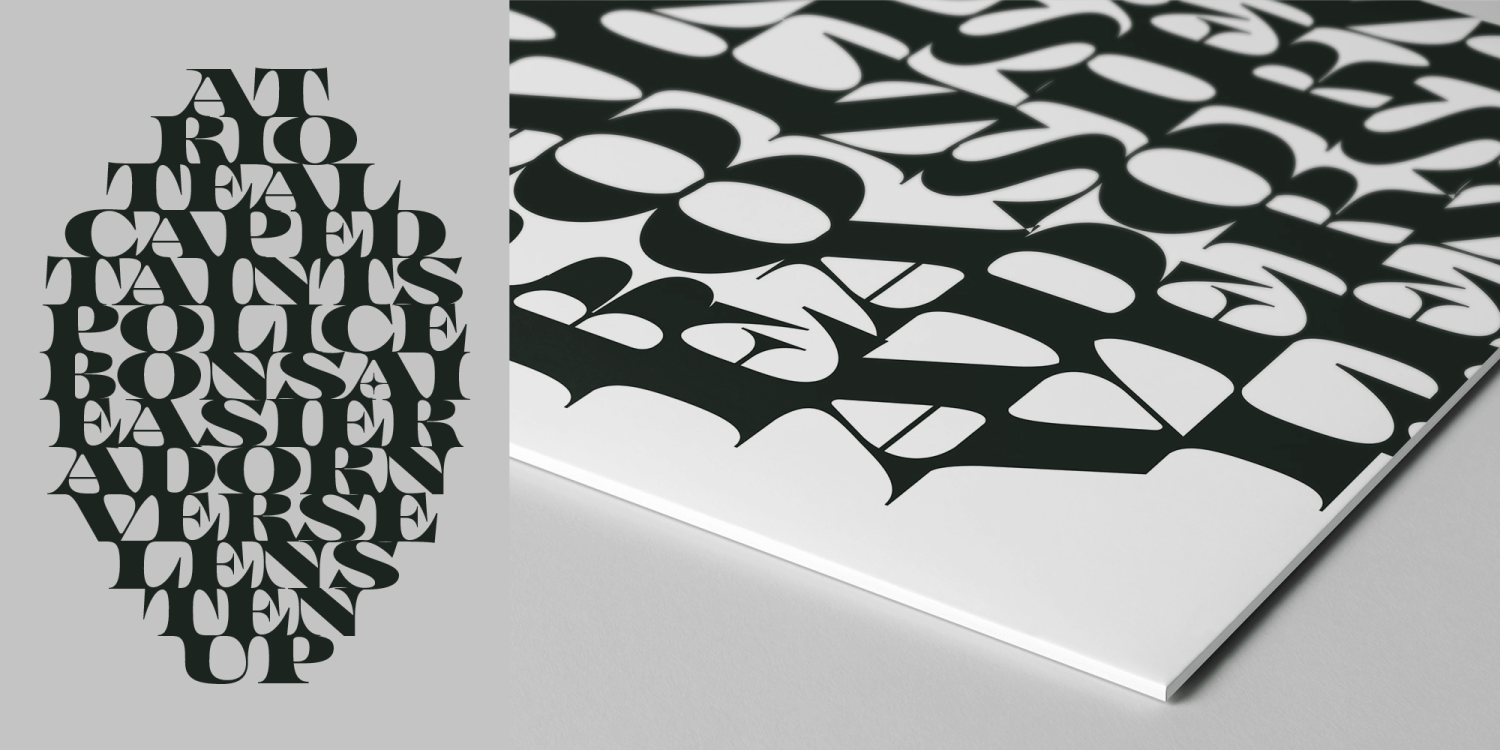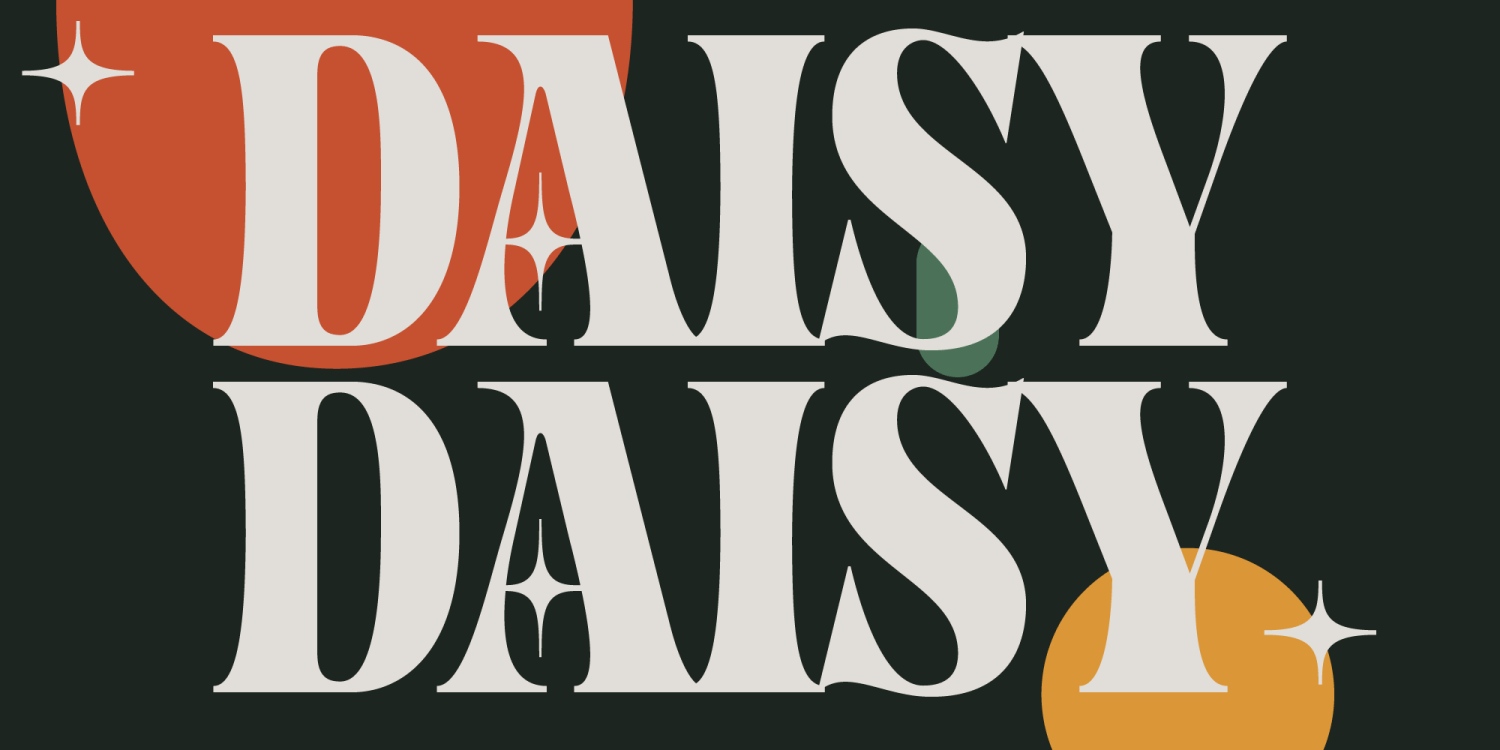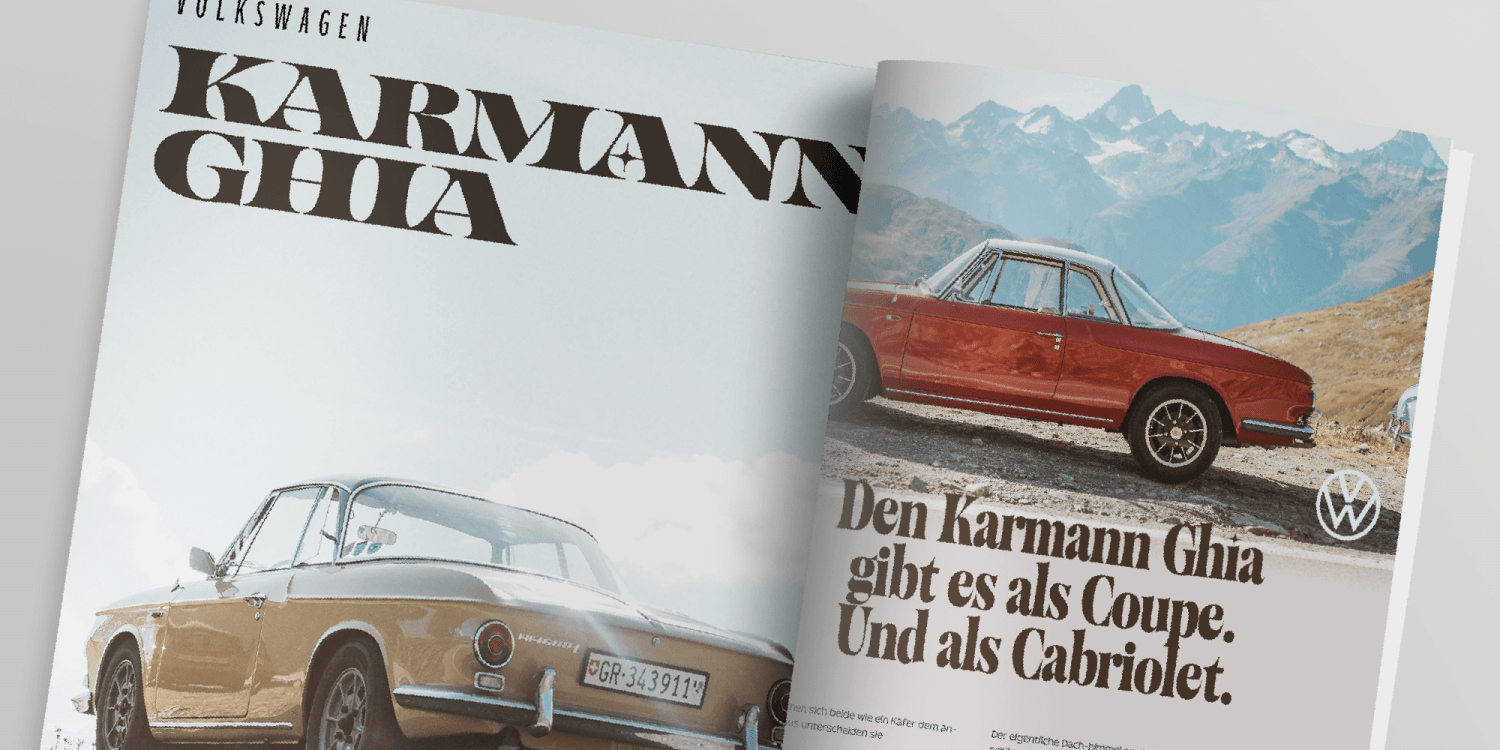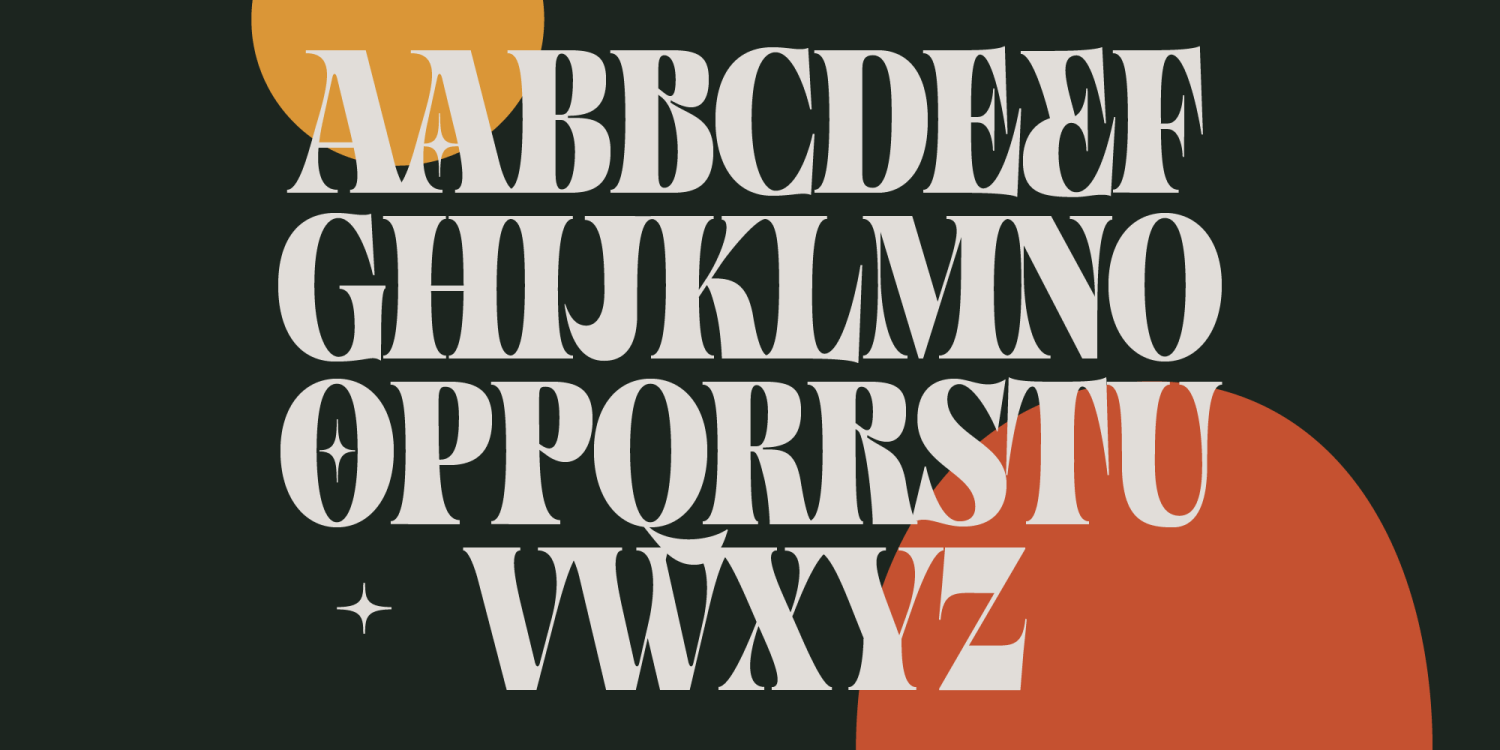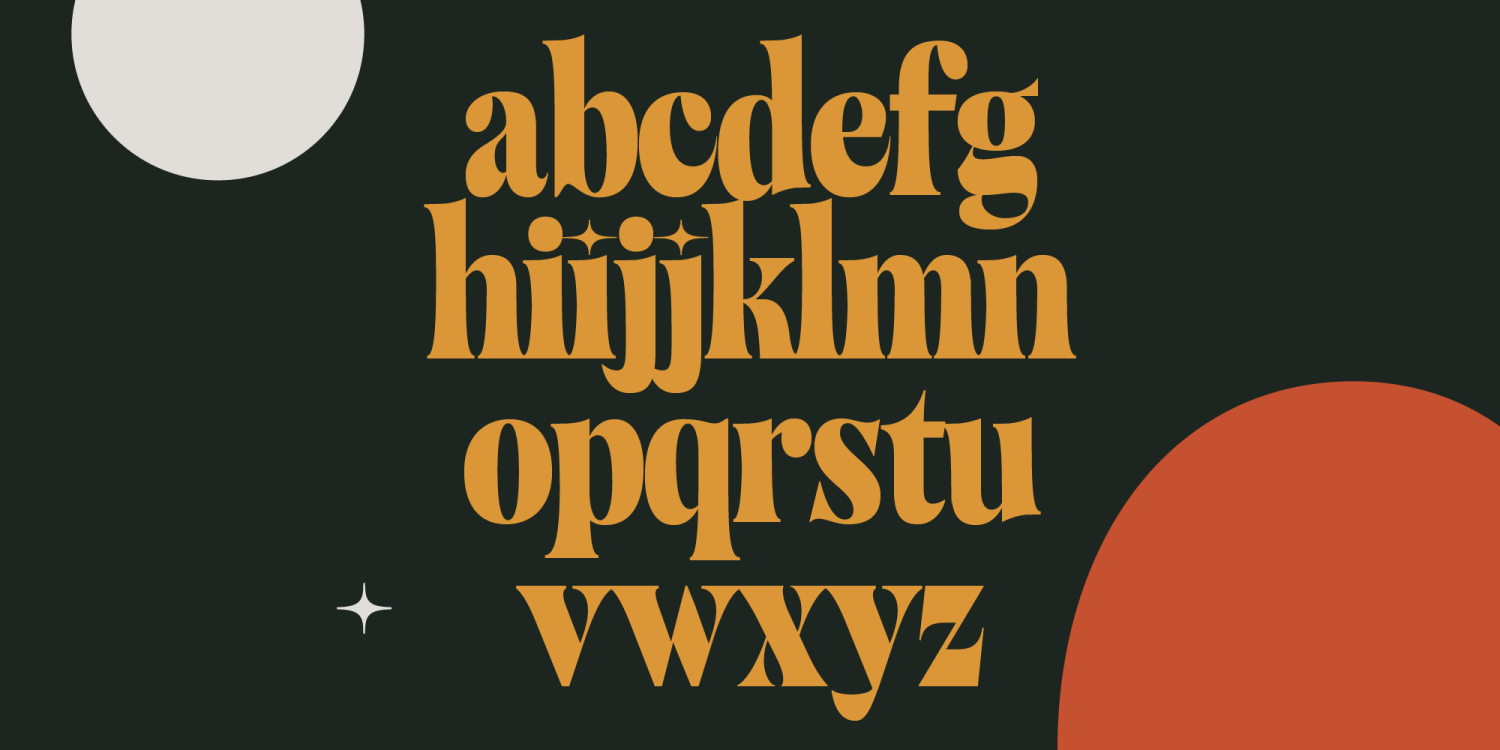
About Balide
Balide is inspired by something simple, elegant, usable, and versatile. So I've made as simple as possible on this fonts. I made it very carefully to get the clean-looking Serif fonts with Bold Characteristics. Balide comes with 3 Weight, Regular,…